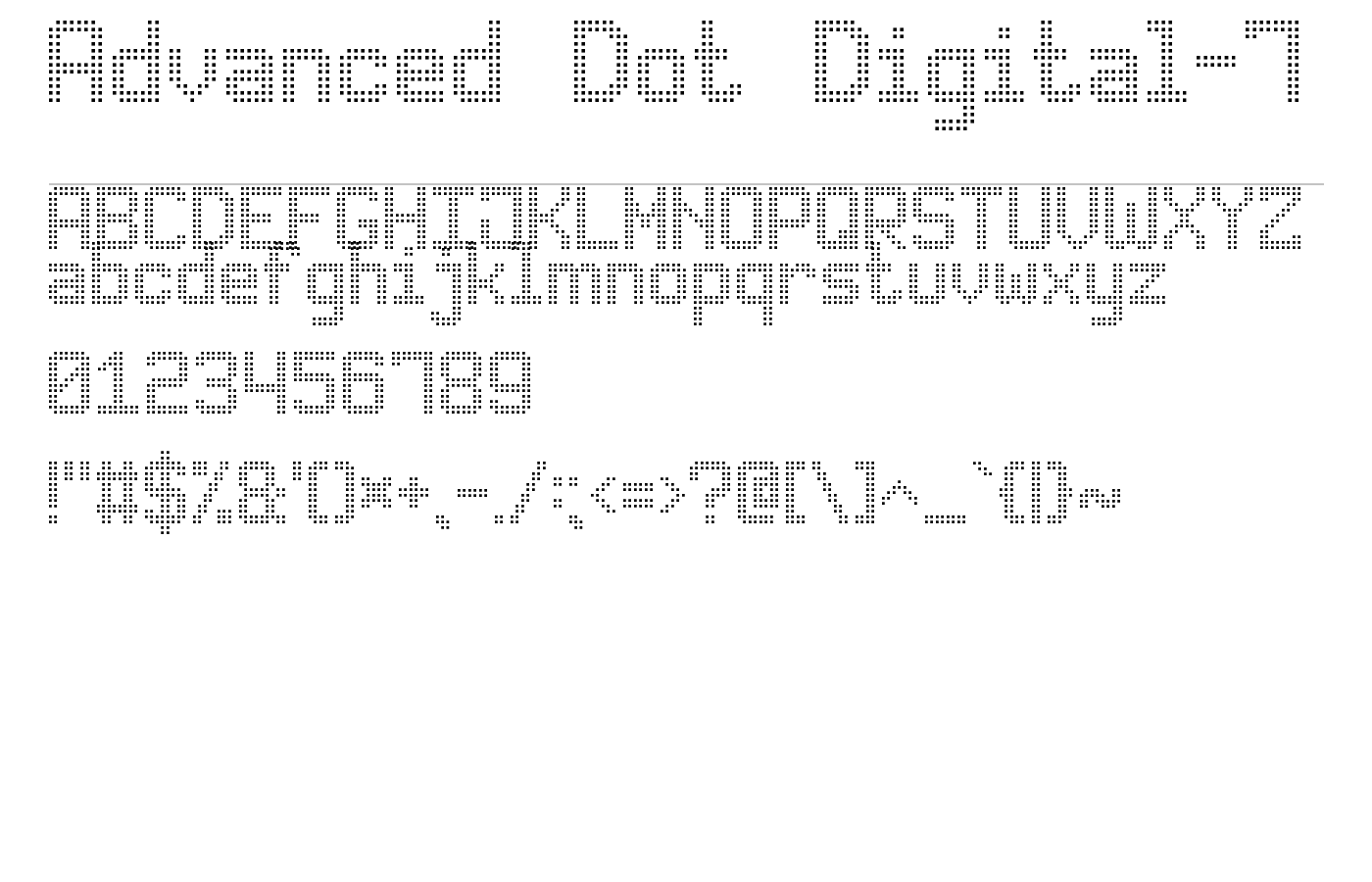
Advanced Dot Digital-7 is a unique sans serif font characterized by its dot matrix style, resembling vintage digital displays and LED screens. With its consistent weight, monospaced feel, and pixelated letterforms, it communicates a retro, technological vibe perfect for designs inspired by old digital devices, coding, and electronic interfaces. This font works especially well for screen displays, tech branding, digital art, and any project seeking a nostalgic yet futuristic aesthetic.
Advanced Dot Digital-7 Font
About Advanced Dot Digital-7 Font
| Font family | Advanced Dot Digital-7 Font |
| Designer | Sizenko Alexander |